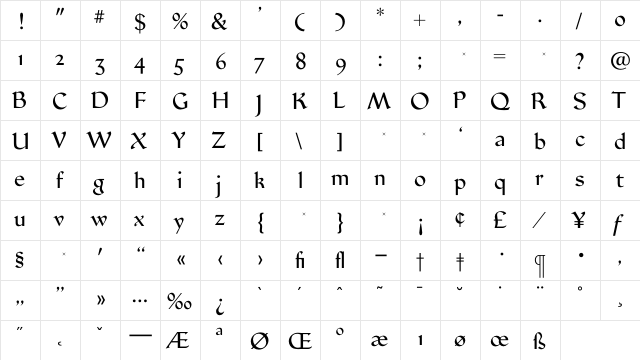
JubileeLight Regular
Design Context for JubileeLight Typeface
JubileeLight offers clean, dependable letterforms without strong stylistic allegiance, making it a practical choice for designers who need flexibility. The delicate stroke weight brings airiness and refinement to layouts.